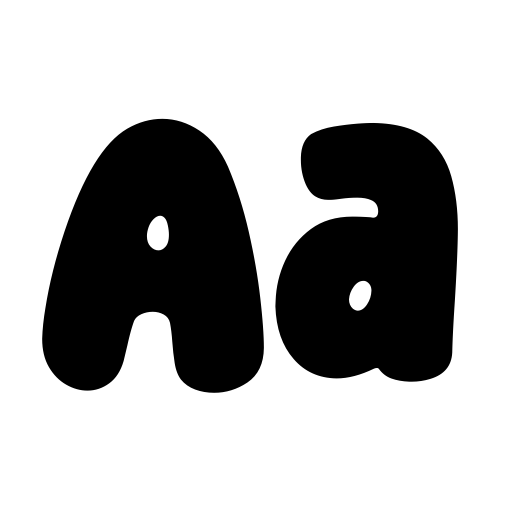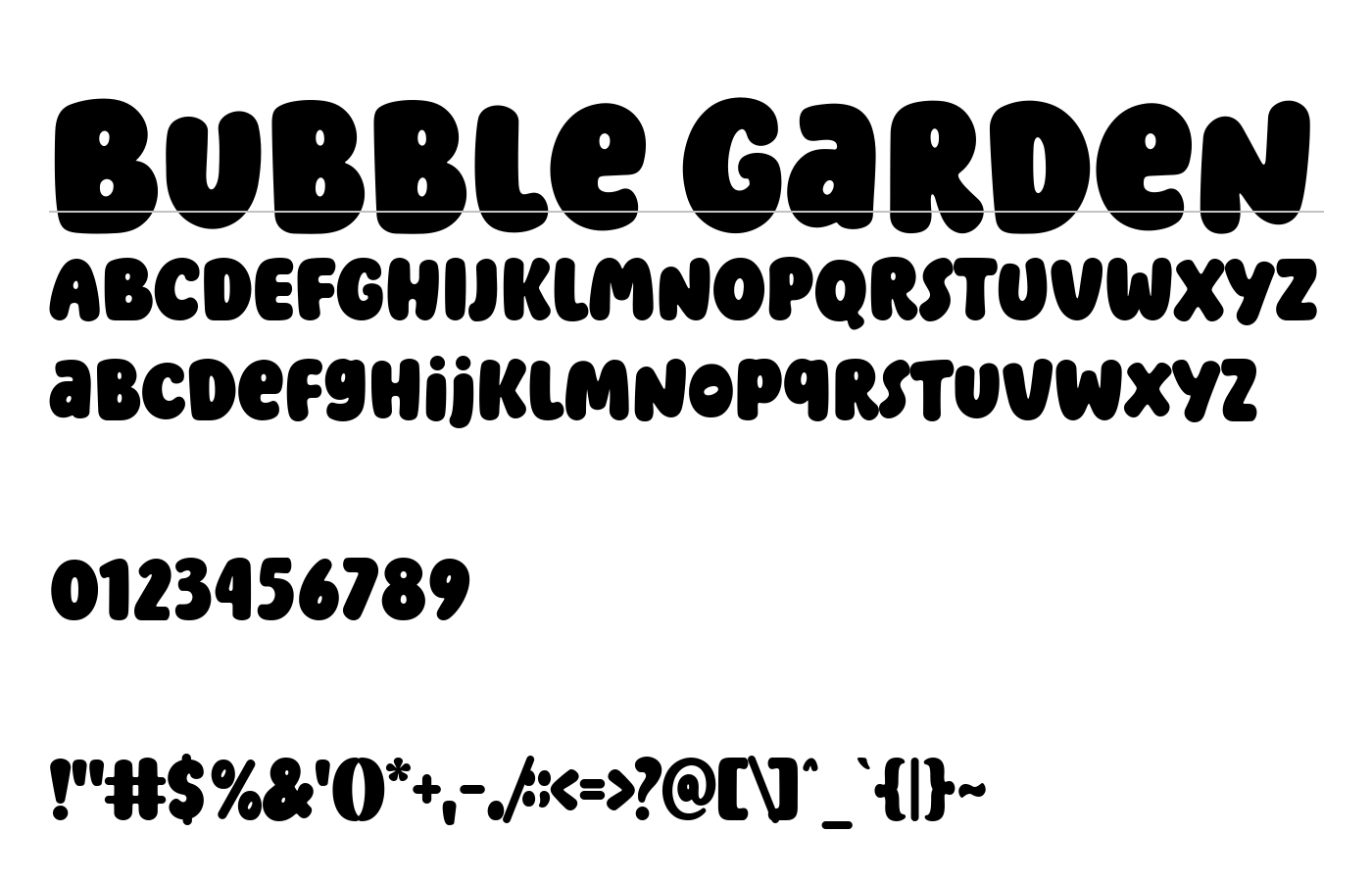
Bubble Garden is a playful, bold sans serif font characterized by its rounded, bubbly letterforms and uniform heavy weight. With its generous width, high x-height, and smooth, soft edges, it projects a fun and friendly personality ideal for children’s products, casual branding, and eye-catching headlines. This font works best in contexts where a cheerful and approachable vibe is desired, such as party invitations, toy packaging, or informal digital content.
Bubble Garden Font
About Bubble Garden Font